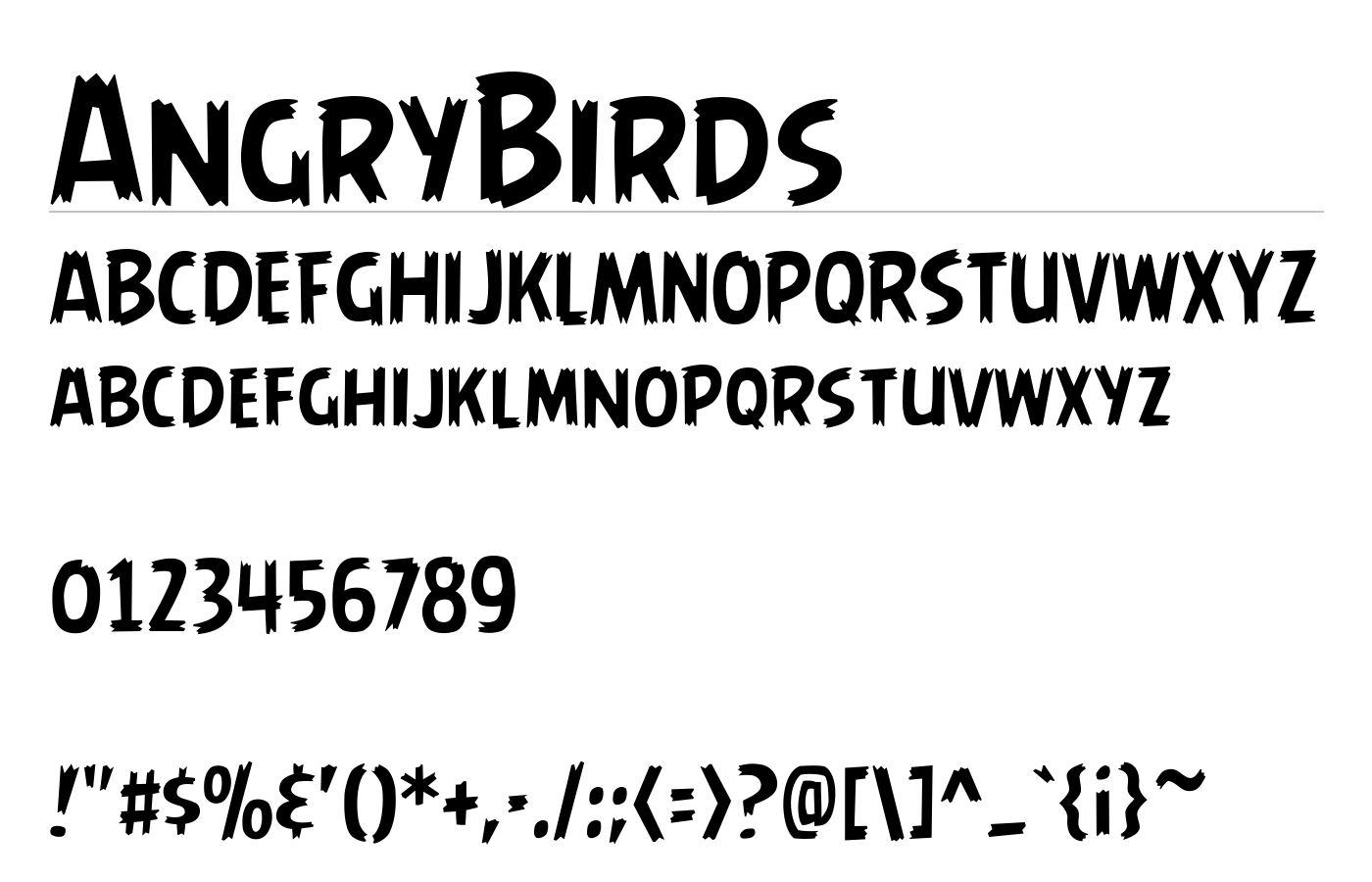
AngryBirds Font is a bold, playful sans serif typeface with jagged, sharp edges that give it a dynamic and energetic character. Its chunky letterforms and uneven strokes create a fun, lively vibe that works perfectly for children’s content, games, posters, and casual branding. This font captures attention with its informal, spirited style, making it ideal for creative and youthful designs.
AngryBirds Font